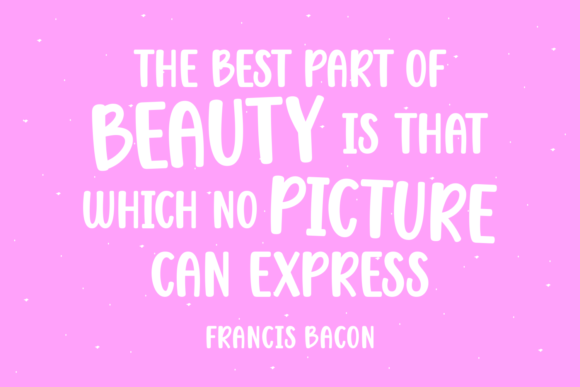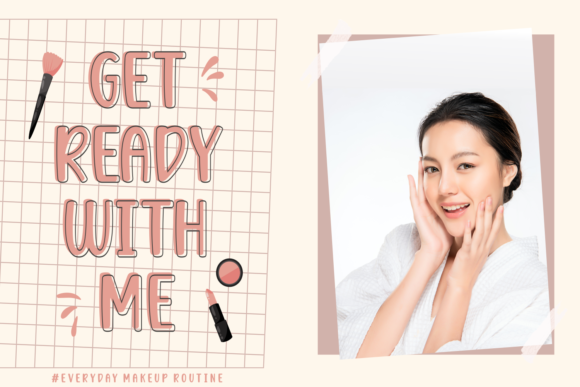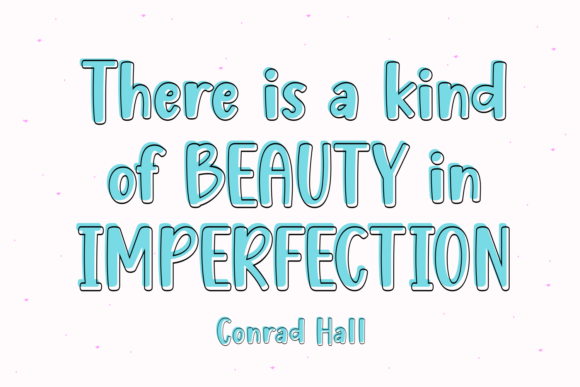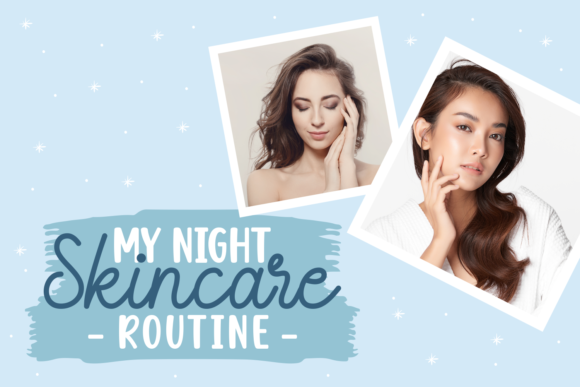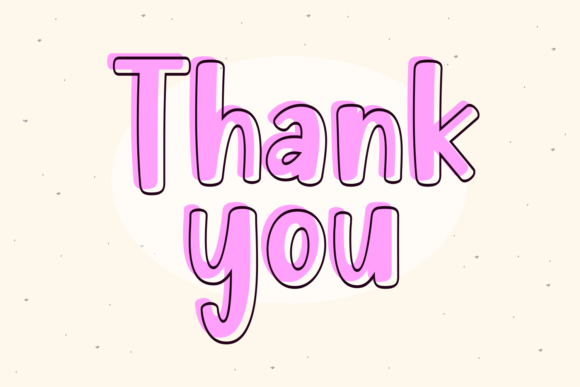
Beauty Pink Font
About Beauty Pink Font
Beauty Pink is a unique and interesting script font.  A little bit quirky, this font looks incredibly adept in a wide variety of contexts!